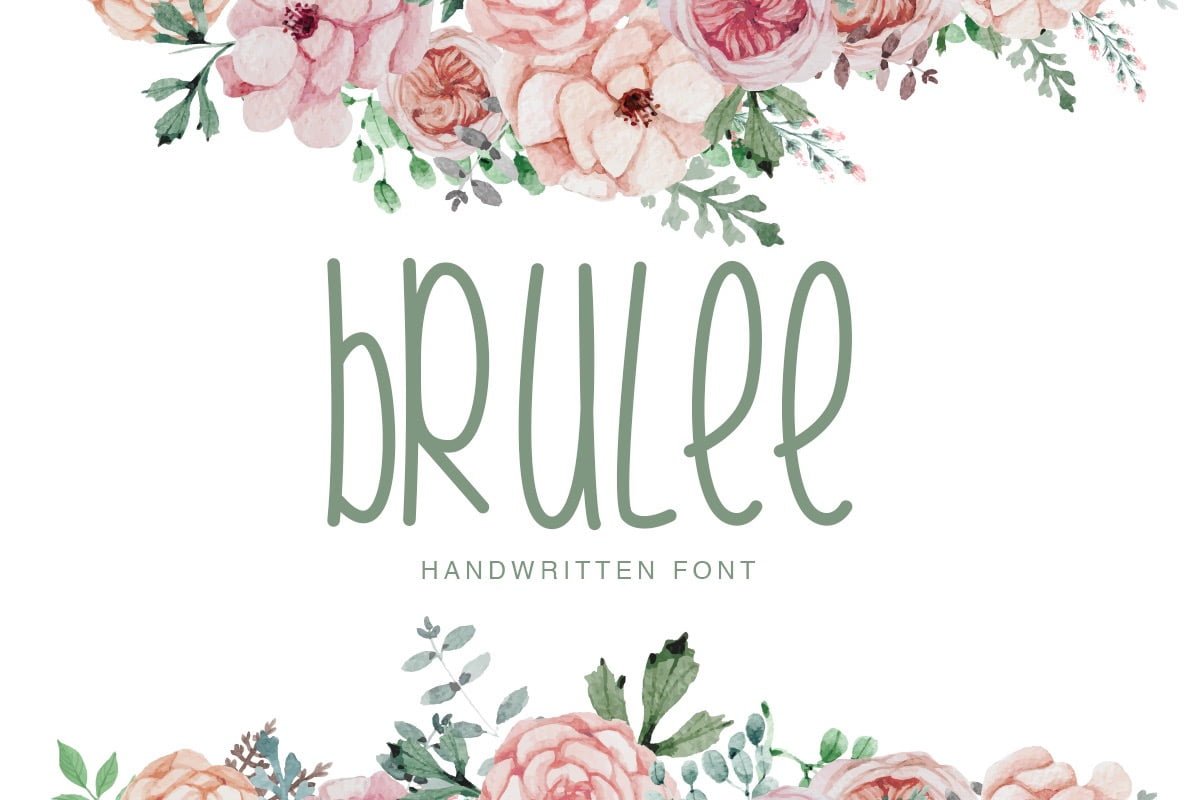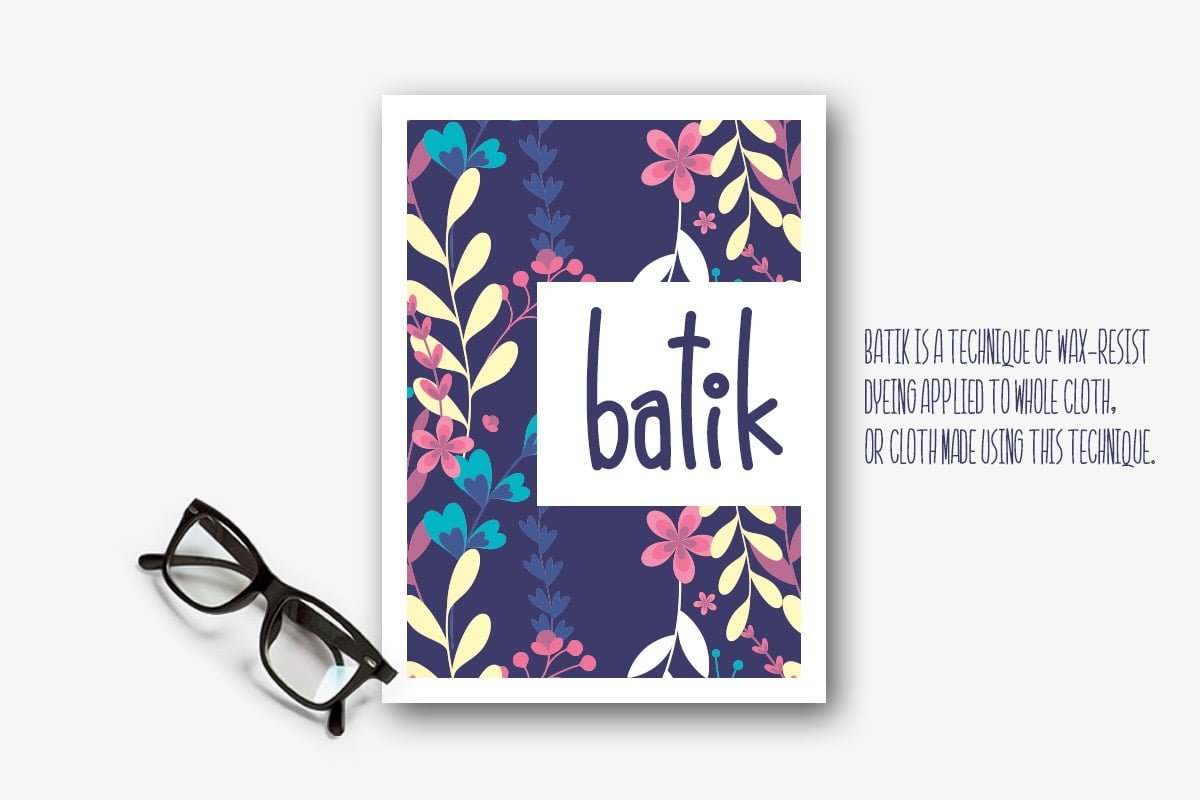
Gorgeous Display and Script style Brulee font duo. Every single letters have been carefully crafted to make your text looks beautiful. Ideal for many different project such as quotes, blog header, poster, wedding, branding, logo, fashion, apparel and much more.
Brulee Handwriting